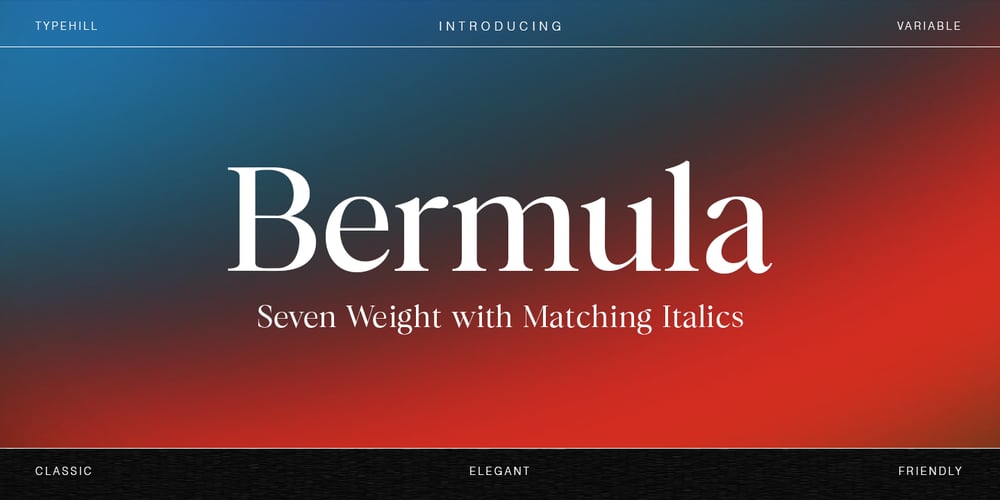
Bermula Font Family was designed by Teuku Fahruddin and published by Typehill Studio. Bermula contains 14 styles and family package options. Bermula is a Contemporary, Classy, and Warm Serif typeface. Bermula has a Clean and Smooth details. The design was intended to improve upon the Legibility.Bermula included 16 Fonts. Regular and matching Italic, from Light to Black weight. Also included Variable Font support. OpenType features allow for the implementation of typographic such as Ligatures. and added Latin Language support.It’s a perfect choice for Branding, Magazines, Posters, Advertising, Print, Packaging, Headlines, Logos, Web Design etc.